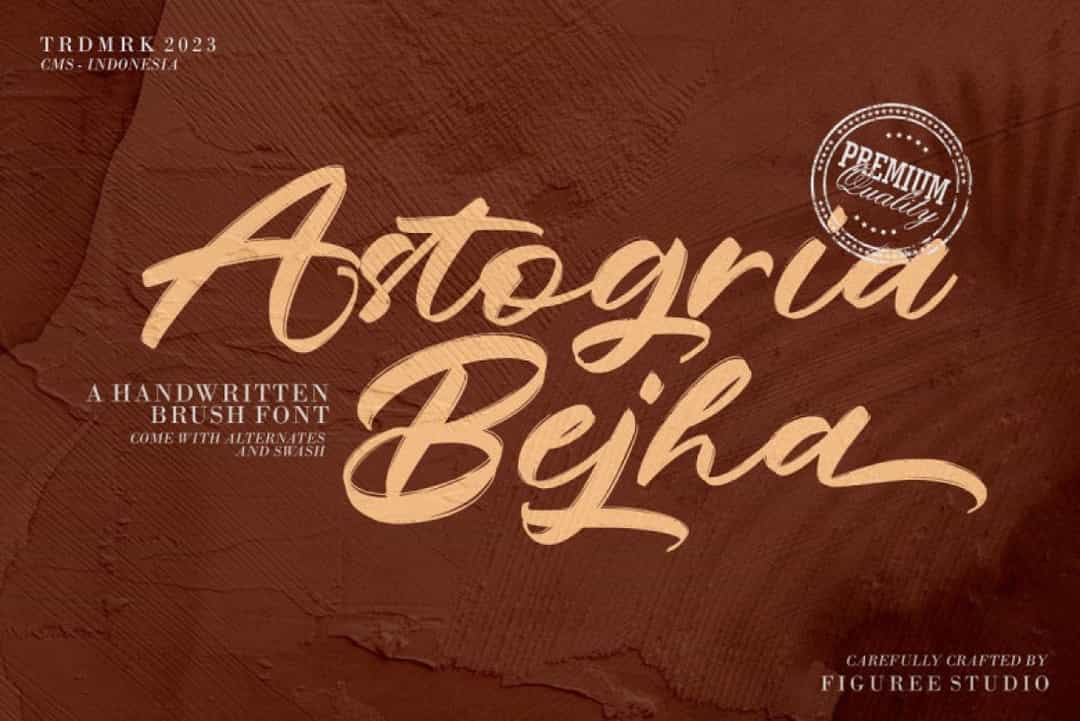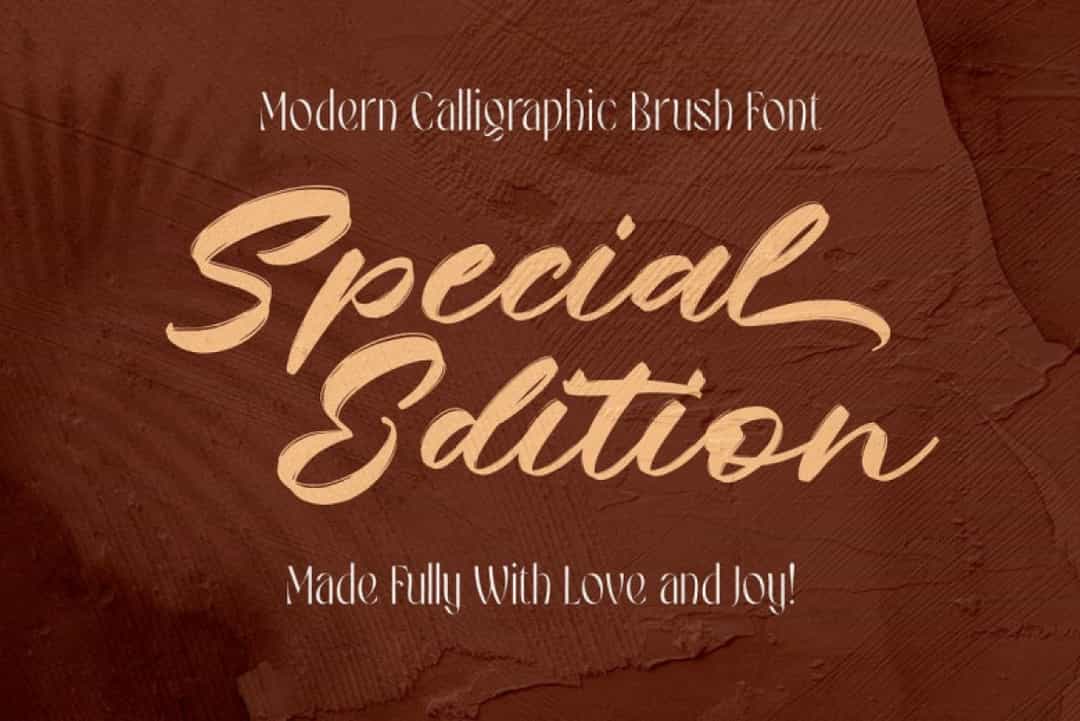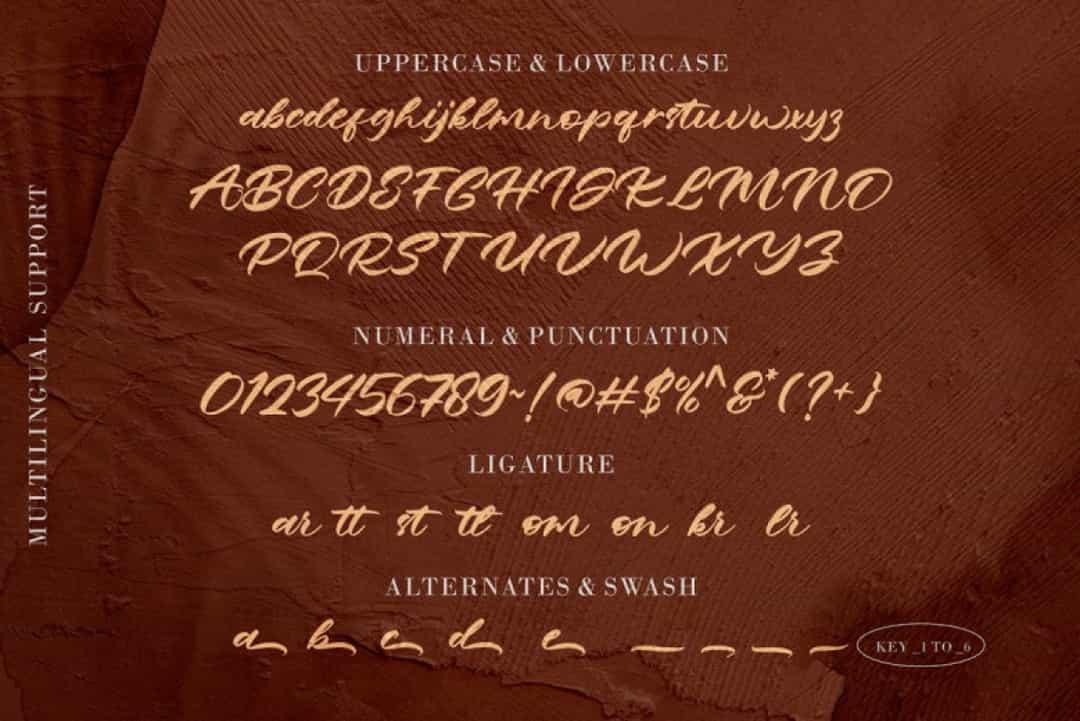
Astogria Bejha is a modern brush font featuring hand drawn lines. Combining beautiful curves with an urban-inspired aesthetic, Astogria Bejha stands out as an eye-catching font perfect for logos branding handwritten quotations packaging merchandise social media posts or web font.